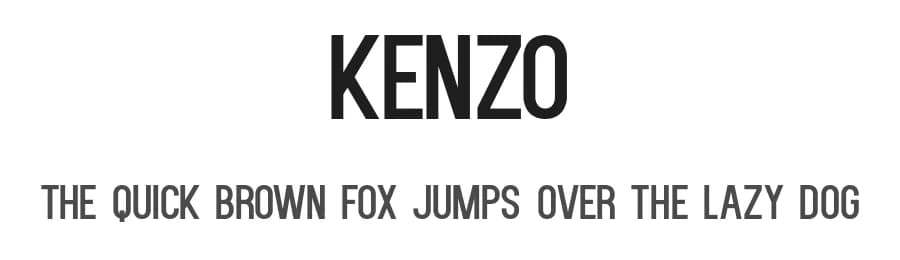
About Kenzo Font
Kenzo is a sans-serif font designed by Anonymous foundry. It includes 160 glyphs, a regular weight, OTF (CFF) format, and 153 languages. Kenzo is free to download; check the license details on this page before commercial use. Sans-serif fonts like Kenzo work best for clean body text, user interfaces, branding, and modern layouts.
Kenzo Specifications
| Font Family | Kenzo |
| Full Name | Kenzo |
| Glyph Count | 160 glyphs |
| PostScript Name | Kenzo |
| Designer | Frank Hemmekam |
Kenzo Font is a versatile sans-serif font that works for both headings and body text. Pair it with a contrasting serif or slab serif font to add visual interest and a clear distinction between titles and body copy.